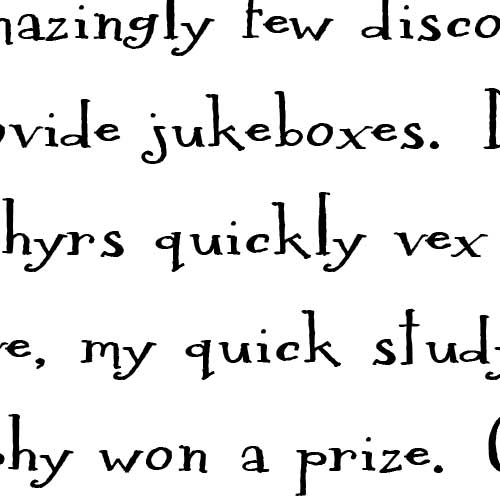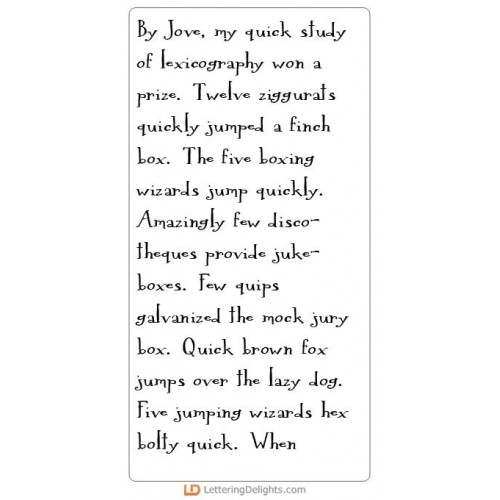
LD Steep - Font
This tall stylized font is perfect for that fun invitation or scrapbook page. It is a journlinag style that will give a wonderful variety to your work.